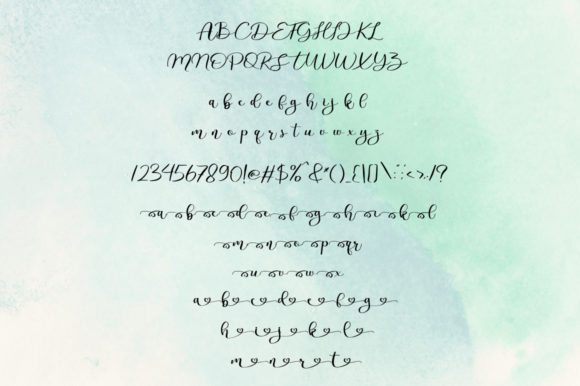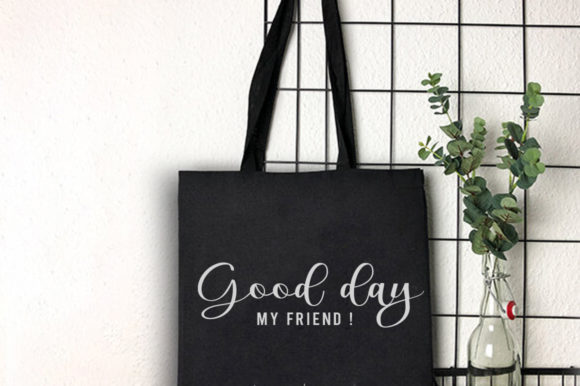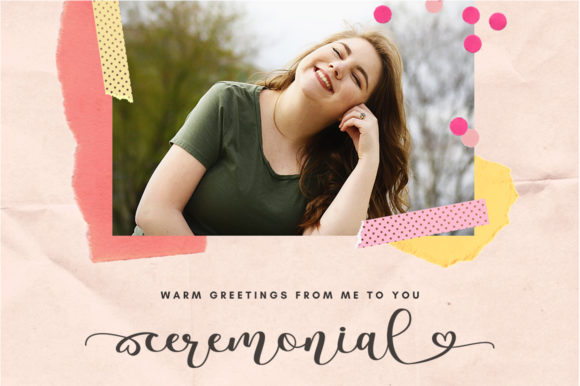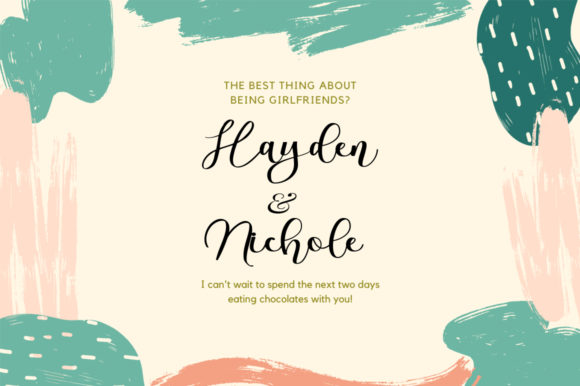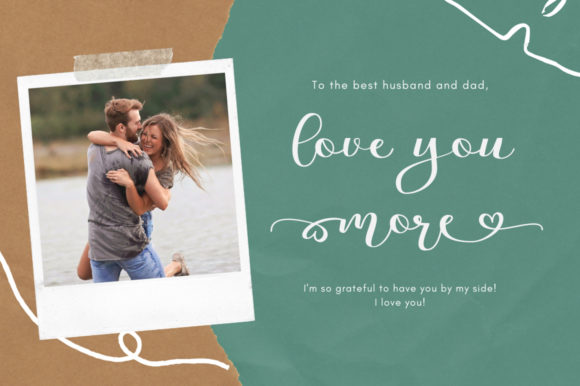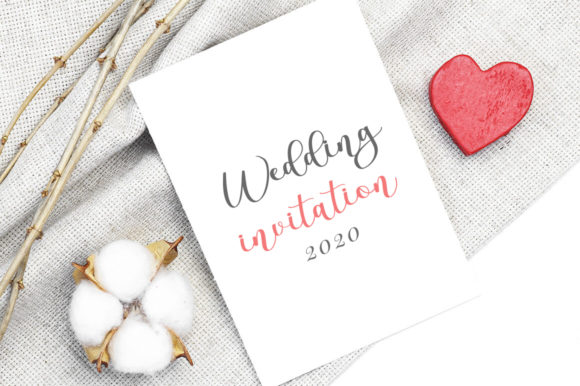
Alandef Font
About Alandef Font
Alandef is a romantic and dazzling script font that exudes elegance and charm. With its well-rounded and distinct letters, this font is truly a masterpiece that adds a touch of sophistication to any design.
The romantic nature of Alandef makes it perfect for a wide range of projects. From wedding invitations to love letters, Alandef’s flowing and dazzling script creates a sense of beauty and allure that captivates the reader.
In wedding invitations, Alandef sets the perfect tone for a romantic and special occasion. Its graceful and stylish appearance adds an element of sophistication and romance, making the invitations even more enchanting and memorable.
Love letters written with Alandef feel truly heartfelt and intimate. The smooth and elegant curves of the font enhance the expressions of love and affection, creating a deep and emotional connection with the recipient.
When used in quotes and social media posts, Alandef adds a touch of charm and elegance to the messages, making them more appealing and captivating to the audience.
In branding and logo designs, Alandef adds a sense of refinement and class, helping businesses establish a polished and sophisticated brand identity. Its well-rounded and distinct letters create a sense of professionalism and elegance, making it attractive to potential customers.
The fact that Alandef is PUA encoded makes it even more versatile and user-friendly. Users can easily access all the glyphs and swashes, unlocking a wealth of design possibilities and creative freedom.
Overall, Alandef is a font that embodies romance and sophistication. Its well-rounded and distinct letters make it a true masterpiece that adds a touch of elegance and allure to any design. Whether it’s in wedding invitations, love letters, quotes, branding, or any other creative project, Alandef is sure to make a lasting impression and leave the audience in awe of its beauty. Embrace the romance and dazzle of Alandef in your designs and let it elevate your creations to new heights of excellence.